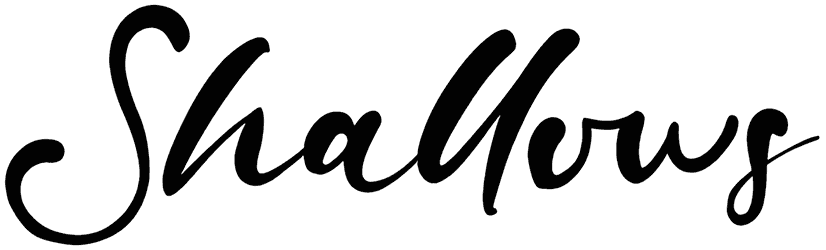
Shallows Font
A classic and dapper style can be harmonized with any theme, and Shallows will create such a look for your design. This handwritten font has a smooth brush lettering appearance and a graceful mood. Your design from planners to wedding cards will shine with this elegant font, and possessing almost full characters gives you a perfect chance.